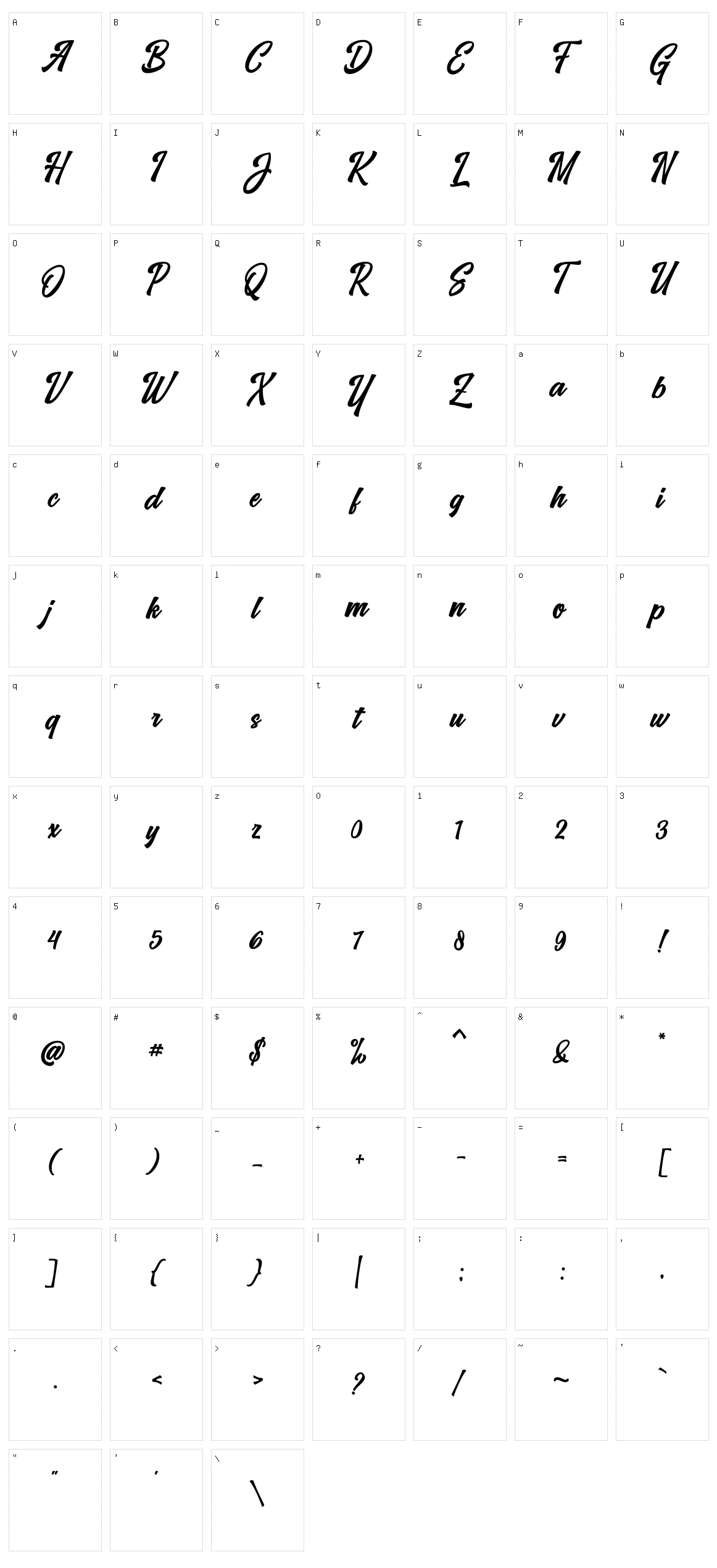
The free font Vrindals Script is carefully designed by pointlab studio, showcasing a thoughtful balance of creativity and usability and falls under the Old-School font style. When you download the ZIP file, it contains only 26.46 KB of font files, making it lightweight and quick to download. Please review the license details below to understand permitted usage and distribution rights. If license information is not available, we recommend using this font for personal projects only or contacting the author directly for commercial usage permissions.